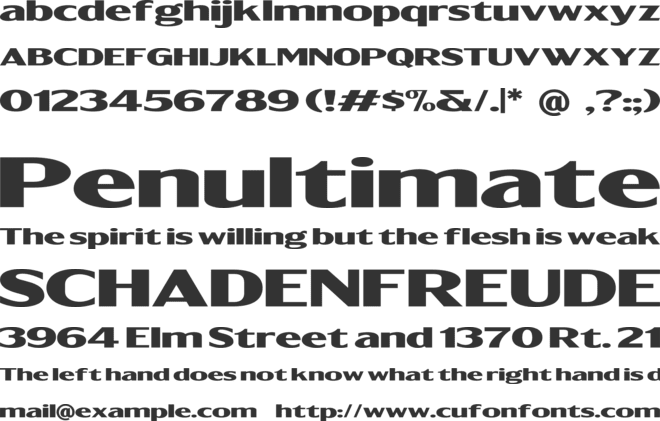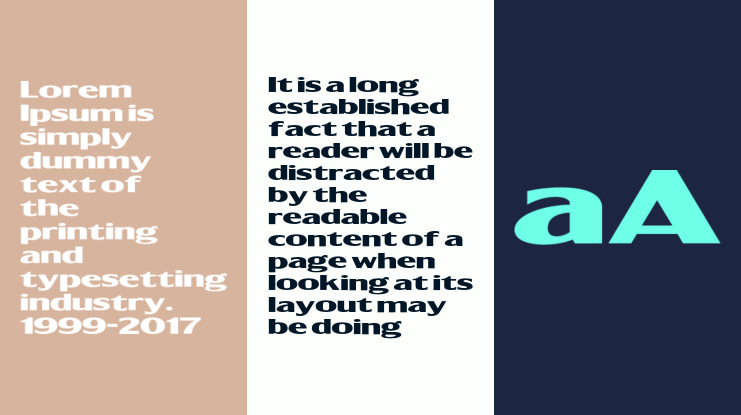
Tenford Font
Perfect for:
- Vintage & retro branding
- Logo design
- Packaging (food, beverage, coffee, cocktail, etc.)
- Posters & signage
- Social media graphics
- Headlines & editorial layouts